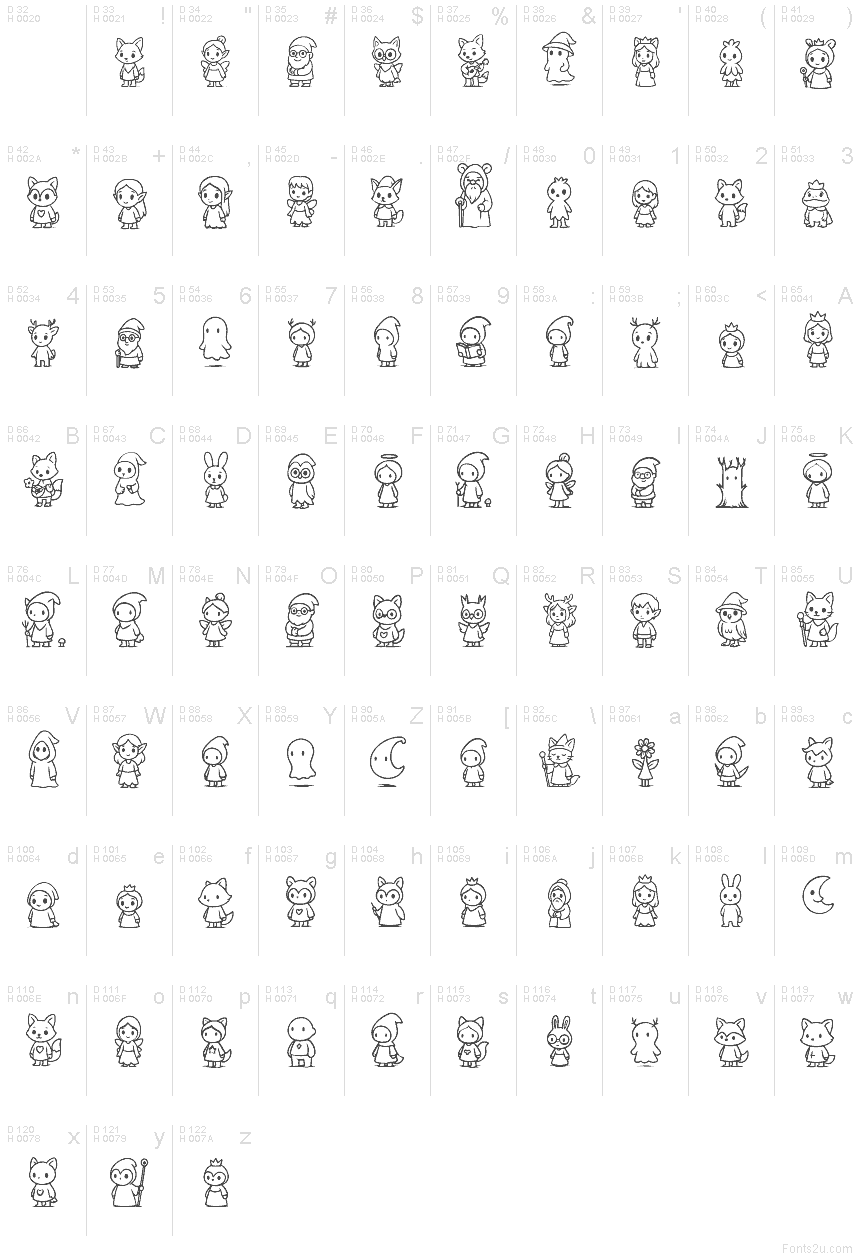
LutinsVolants
LutinsVolants font by BlackFridayFont FMF is a free cartoon dingbats font that solves the “I need cute illustrations now” problem. Each glyph is a tidy, hand‑inked character-round cheeks, bobble heads, tiny cloaks, ears, and tails-with consistent line weight so your set feels cohesive without hiring an illustrator. Drop a single elf, bunny, or fox for a wink of personality, or build little scenes; the clean outlines stay crisp from label size to poster.
Using LutinsVolants, you can spin up kids’ birthday invites, classroom worksheets, sticker sheets, badges, storybook mockups, and social headers in minutes. This free font shines when paired with a soft, rounded sans and ample white space; set the dingbats slightly larger than the text to let the charming lines breathe.